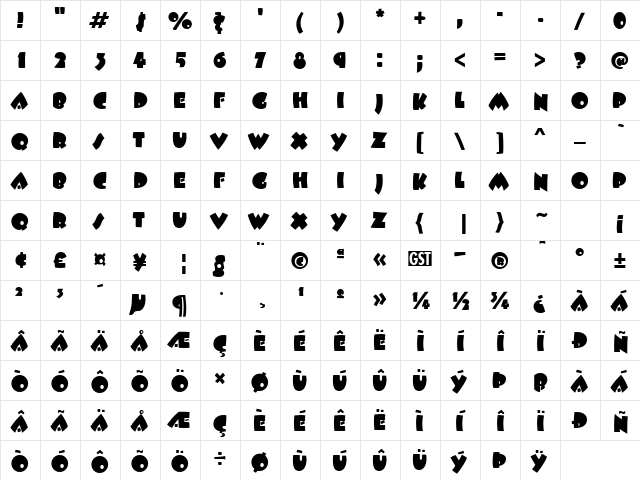
Beetlejuice normal
Design Context for Beetlejuice Typeface
Beetlejuice is a composed and adaptable typeface that performs quietly and consistently across a wide range of design contexts.
Pro Tip: Use Beetlejuice in both headline and body roles to test its range before committing to a single application.